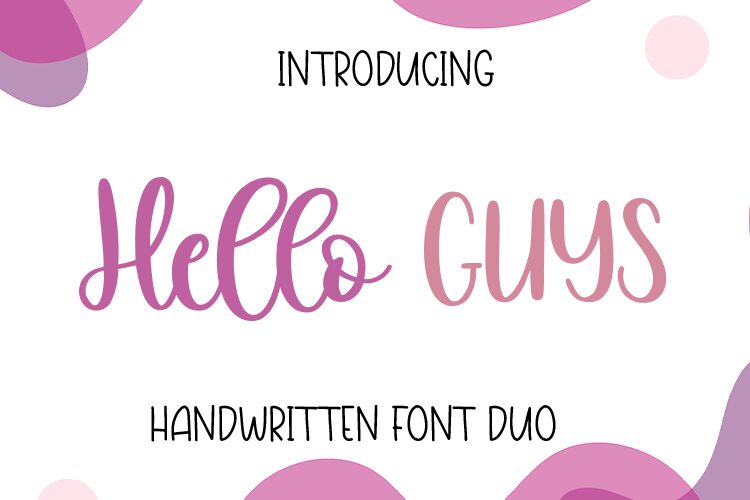
Hello Guys, the delightful creation by Bearytype, is a versatile handwritten font that effortlessly exudes charm and elegance. With its semi-light weight and semi-condensed width, this font is perfect for projects that demand a delicate touch combined with a space-saving design. Whether you're designing invitations for whimsical weddings, crafting captivating blog titles, or creating eye-catching logos for trendy boutique brands, Hello Guys will add a unique and personal touch to your work. Get ready to captivate your audience with this playful yet sophisticated typeface.